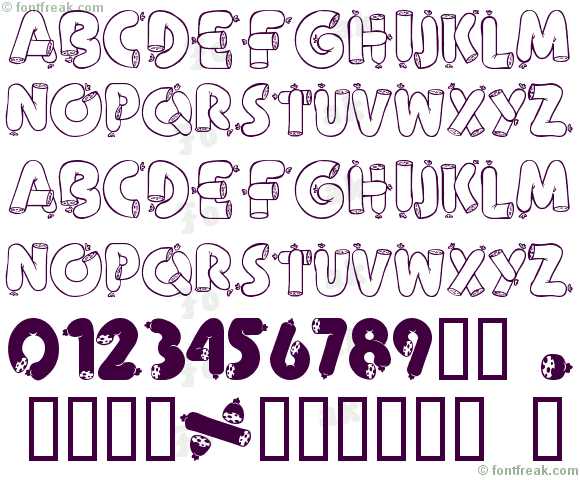
Alpha Sausage
About Alpha Sausage
Alpha Sausage, created by Lime, is a unique display font that captures attention with its playful and whimsical design. This font falls within the decorative category, featuring a rounded, bubbly aesthetic that evokes a sense of fun and creativity. The stroke weight is consistent throughout, giving a uniform appearance, while the playful, sausage-like shapes provide an inviting character. The letters are spaced comfortably, ensuring readability while maintaining a lighthearted vibe, making it ideal for various applications.
This font is versatile and can be used for a range of creative projects. It shines in settings like children's party invitations, where its cheerful style can set the tone for a fun celebration. Additionally, Alpha Sausage is perfect for restaurant menus, especially for eateries specializing in casual dining or gourmet hot dogs, where the font's quirky nature can enhance the theme. Graphic designers might find it invaluable for branding purposes, particularly when targeting a youthful audience. Content creators can also leverage this font for social media graphics, ensuring their posts stand out in crowded feeds.
The primary audience for Alpha Sausage includes graphic designers, small business owners, and content creators who are looking for a font that adds personality to their work. Whether used in print or digital formats, this font brings a unique flair that can elevate any project.